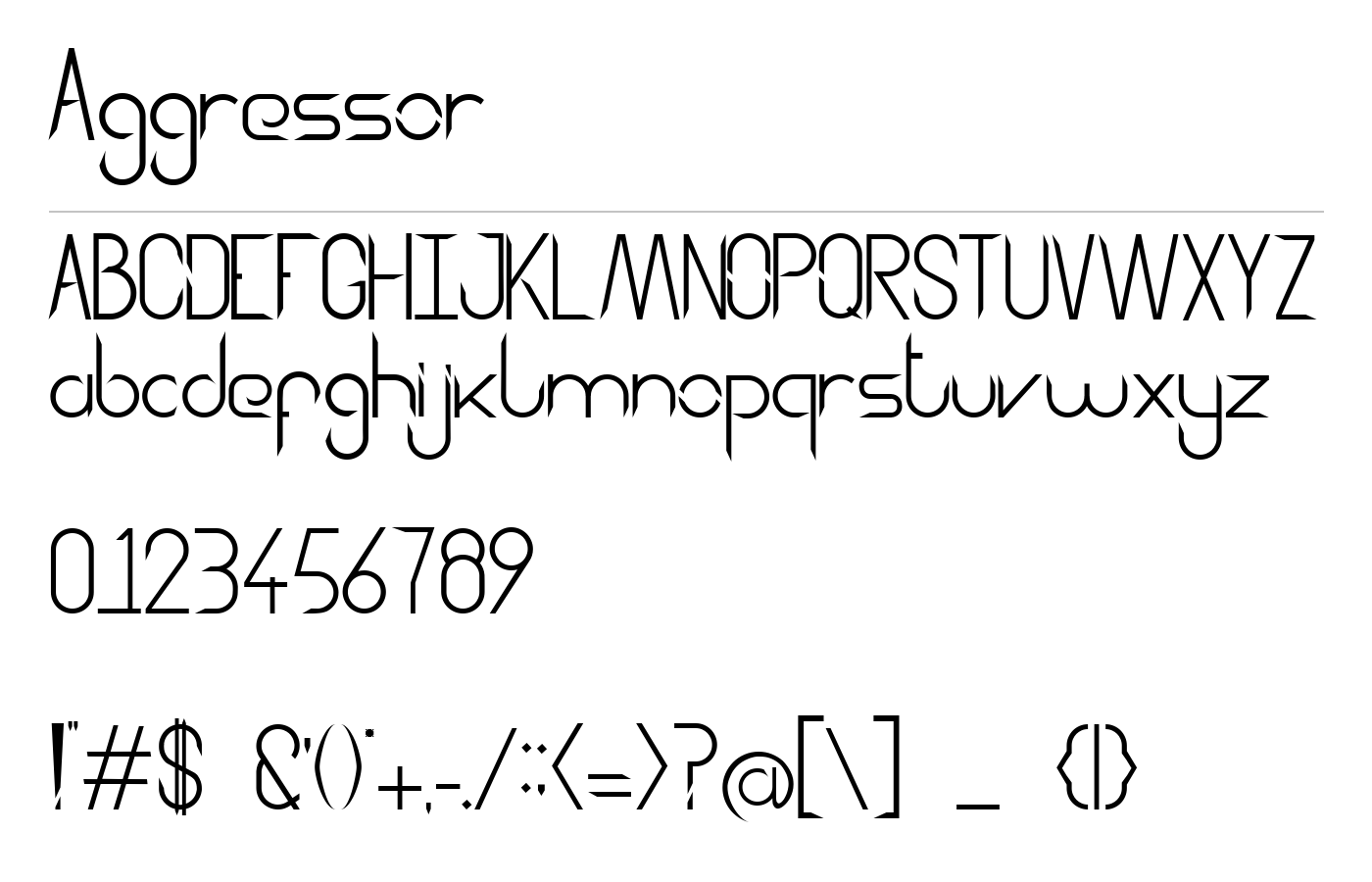
Aggressor is a modern, condensed sans serif font with sharp, geometric lines and distinct pointed accents that give it a bold, edgy personality. Its tall, narrow letterforms and sharp angles make it ideal for striking headlines, logos, or branding that demands a futuristic and aggressive vibe. This font works especially well in fashion, tech, or entertainment contexts where a cutting-edge, dynamic look is desired.
Aggressor Font
About Aggressor Font